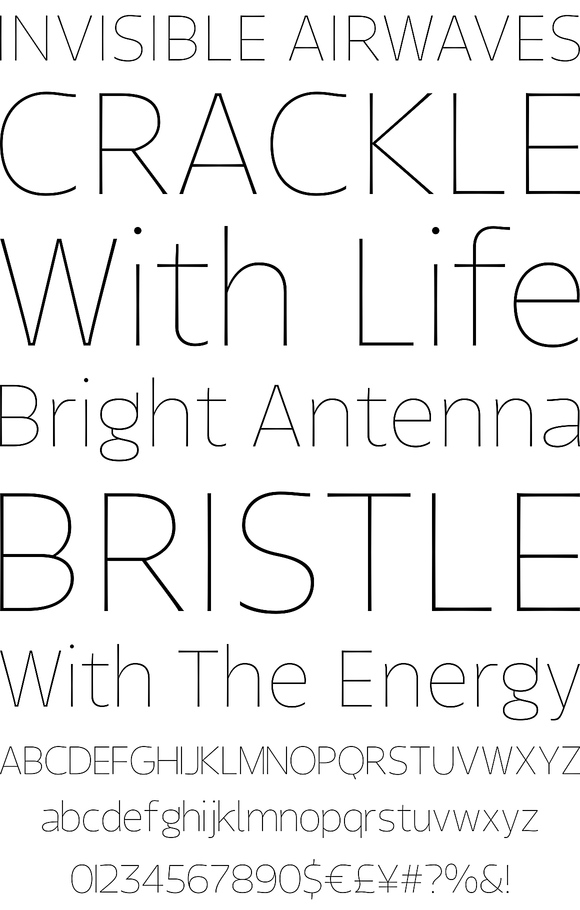
Say hi to Tikal Sans; A bloody Mayan ritual with no reading sacrifice. Is a glyphic family of twenty weights Mayan inspired designed for Text and Display sizes.
Say hi to Tikal Sans; A bloody Mayan ritual with no reading sacrifice. Is a glyphic family of twenty weights Mayan inspired designed for Text and Display sizes. The Details curved terminating strokes ended in sharp edges inspired in the ‘virgula’ Mayan glyph that means ‘the spoken word’. Tikal is also known for being the largest city of the Mayan Classic Period and his name means “Lugar de Las Voces” (place of voices). With a contemporary large x-height with opentype contextual alternate letters offers a functional look with a friendly touch. The Thin and Black weights are great performers in display sizes the light, regular and medium weights are well suited to longer texts.